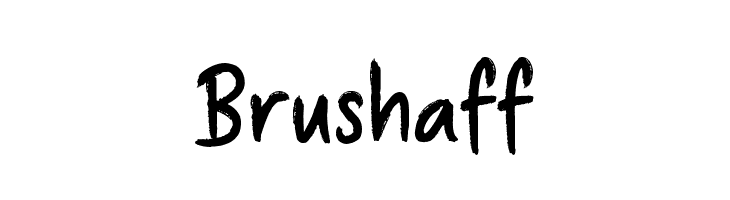
A bold, italicized font with a futuristic and dynamic style.
A bold, futuristic font with sharp, angular design elements.
A futuristic, geometric font with angular and sharp edges.
A futuristic, italicized font with sharp, angular lines and a dynamic style.
Bold, geometric font with a futuristic and industrial style.
A bold, geometric font with a double-line effect and futuristic style.
A bold, geometric font with a futuristic and dynamic style.
A bold, playful font with a distressed, hand-crafted appearance.
A bold, playful handwritten font with thick strokes and a casual style.
A flowing, elegant script font with a playful yet sophisticated style.
A sleek, italic font with modern elegance and classic charm.
A hollow, geometric font with a modern and angular design.
A bold, geometric font with rounded edges and sharp angles for a modern look.
A modern, geometric font with consistent stroke width and a sleek design.
A bold, italic font with a dynamic and modern style.
A bold, geometric serif font with a modern and classic blend.
A bold, italicized font with a modern and slightly decorative style.
A bold, geometric font with angular shapes and a modern, industrial feel.
A playful, hand-drawn font with whimsical, uneven strokes.
A bold, geometric font with a modern and futuristic style.
A bold, futuristic font with geometric shapes and a dynamic design.
A bold, dynamic brush-style font with fluid, expressive strokes.
A delicate, flowing script font with an elegant, handwritten style.
A flowing, elegant cursive font with graceful loops and smooth connections.
An elegant, cursive font with flowing, sophisticated letterforms.
A modern, elegant handwritten font with fluid strokes and a dynamic slant.
An elegant, flowing script font with graceful curves and sophisticated flourishes.
An elegant script font with flowing, interconnected letters and ornate flourishes.
A dynamic, expressive handwritten font with fluid, cursive strokes.
A playful, bold, and rounded hand-drawn font with a whimsical style.
A tall, narrow, and geometric font with a modern aesthetic.
A playful and bold font with rounded, whimsical letterforms.
A modern, geometric sans-serif font with clean lines and balanced proportions.
A bold, brush-style font with high contrast and an energetic, distressed look.
A bold, brush-style font with dynamic, handcrafted strokes.